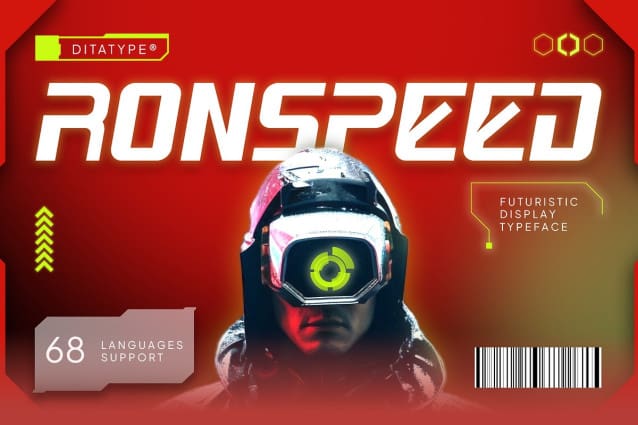
Ronspeed Font
Ronspeed Font – a bold, futuristic display font designed for impact. Crafted in uppercase with a thick weight, Ronspeed exudes strength and precision. Its sharp and sturdy design elements reflect a modern, high-tech aesthetic, making it perfect to add a forward-looking, cutting-edge style. Ronspeed Font brings a powerful and dynamic presence to your designs, ensuring they stand out with a sleek, futuristic edge.